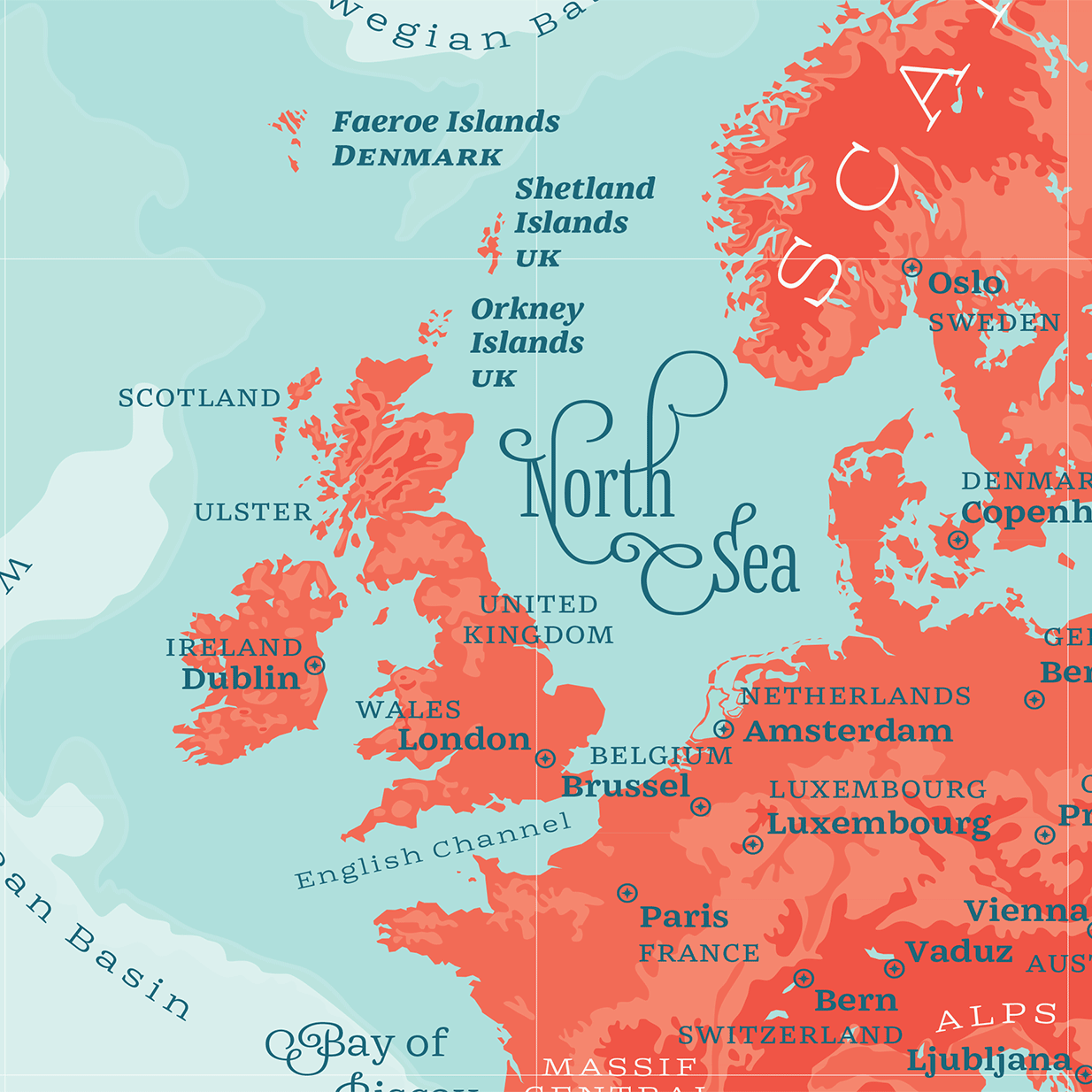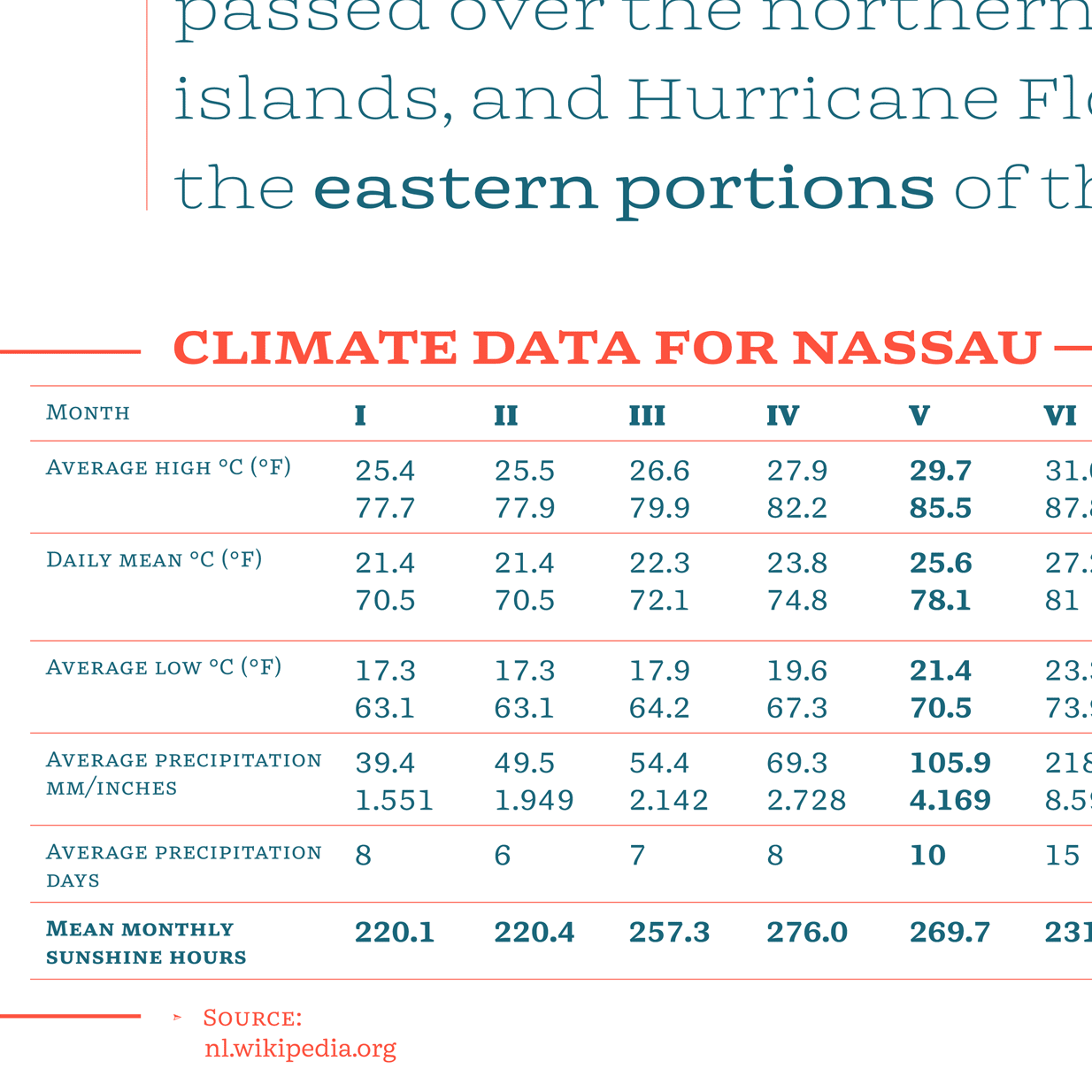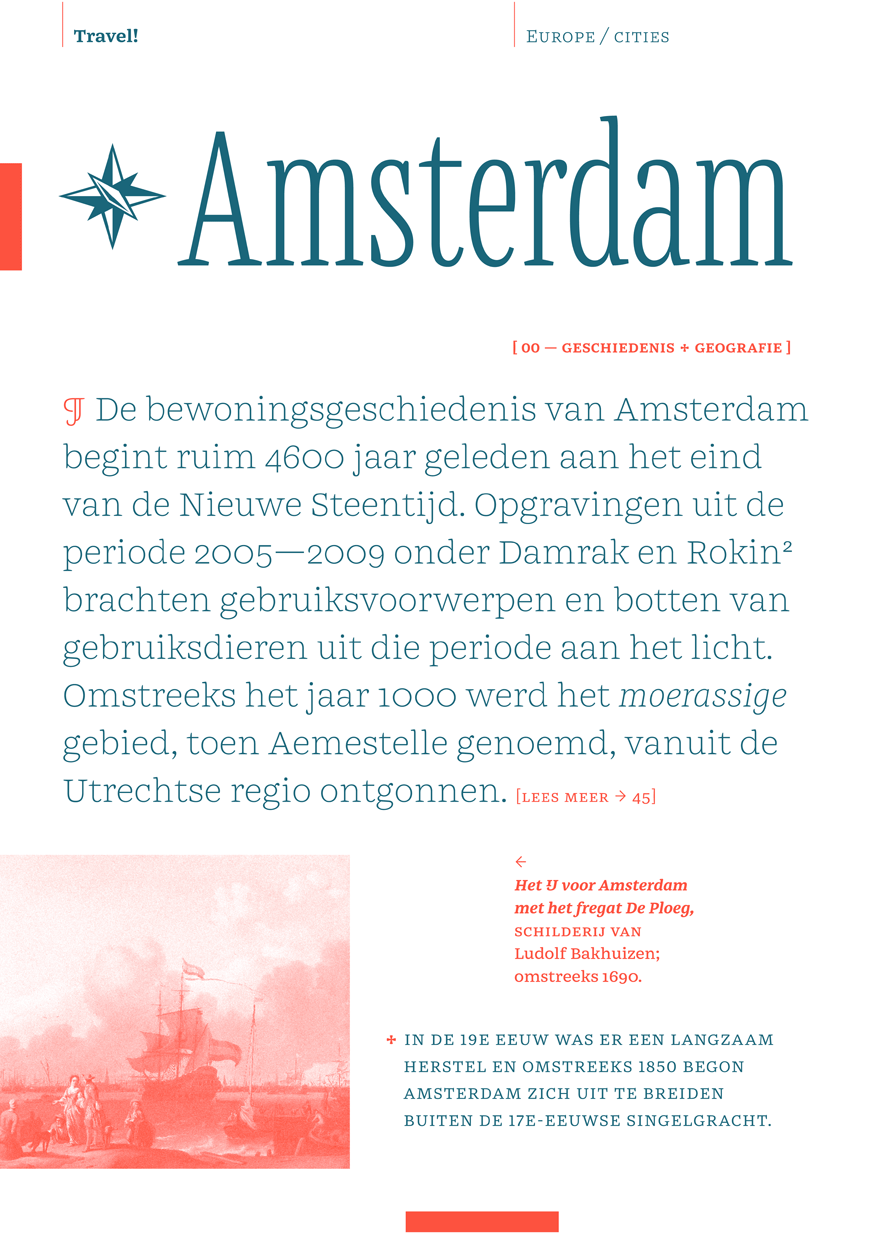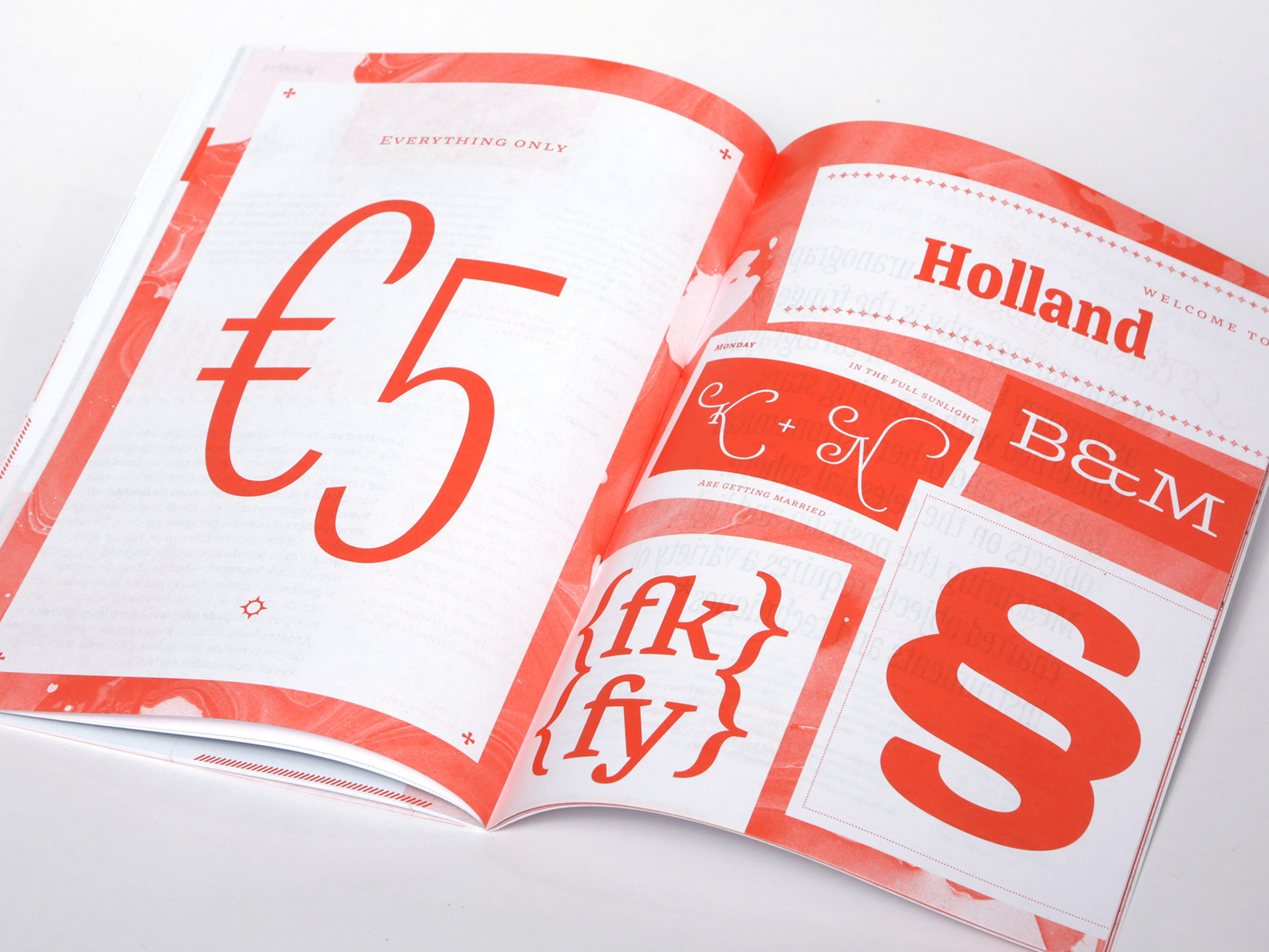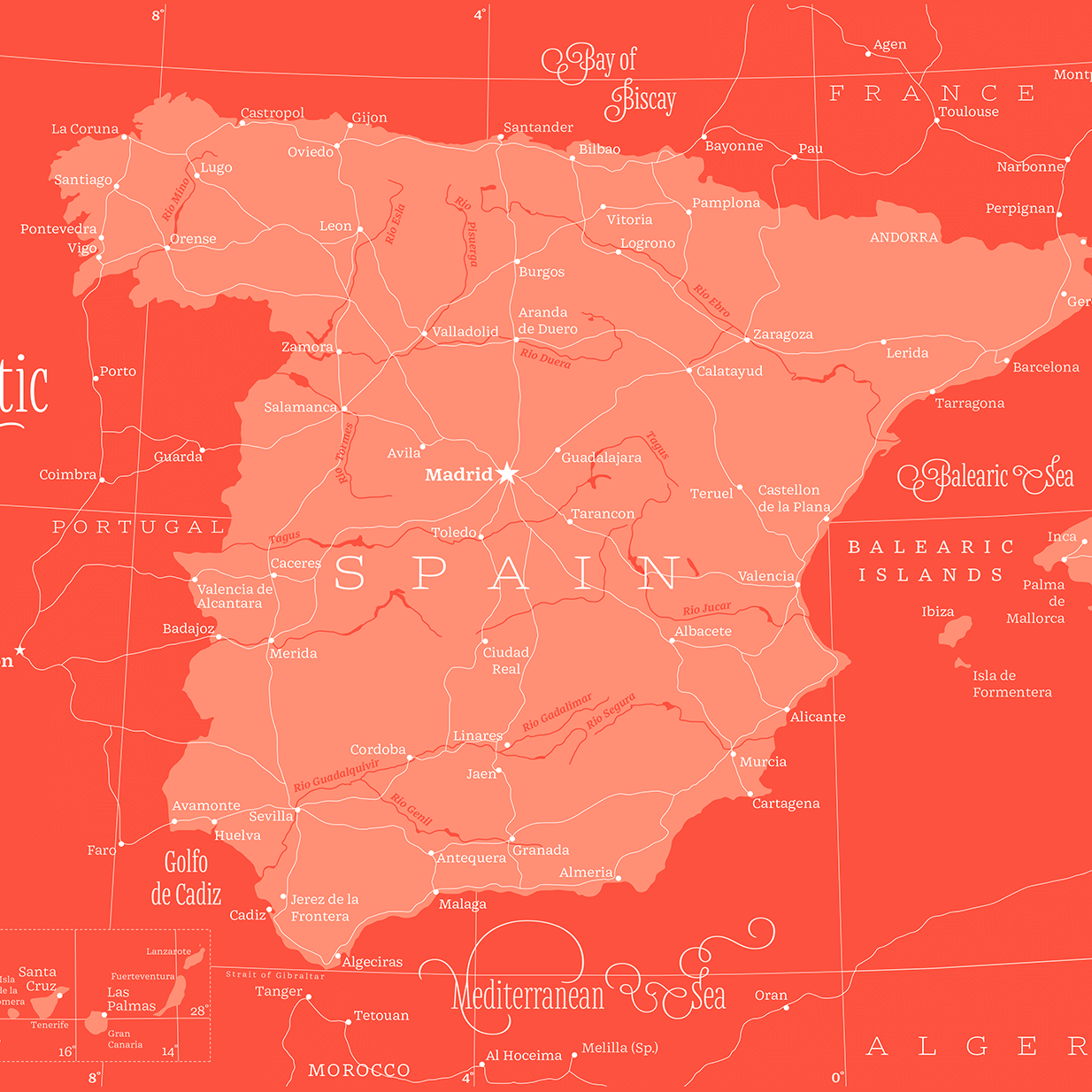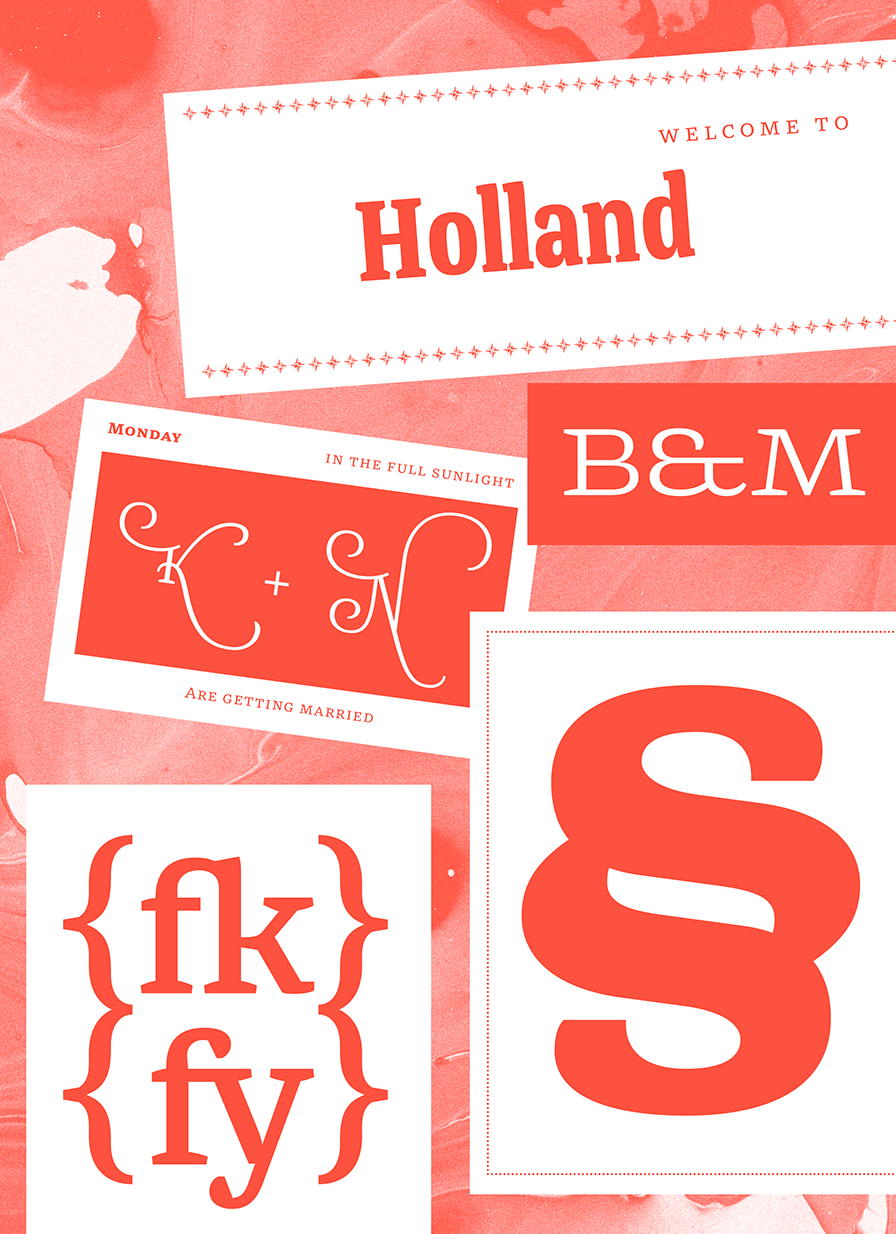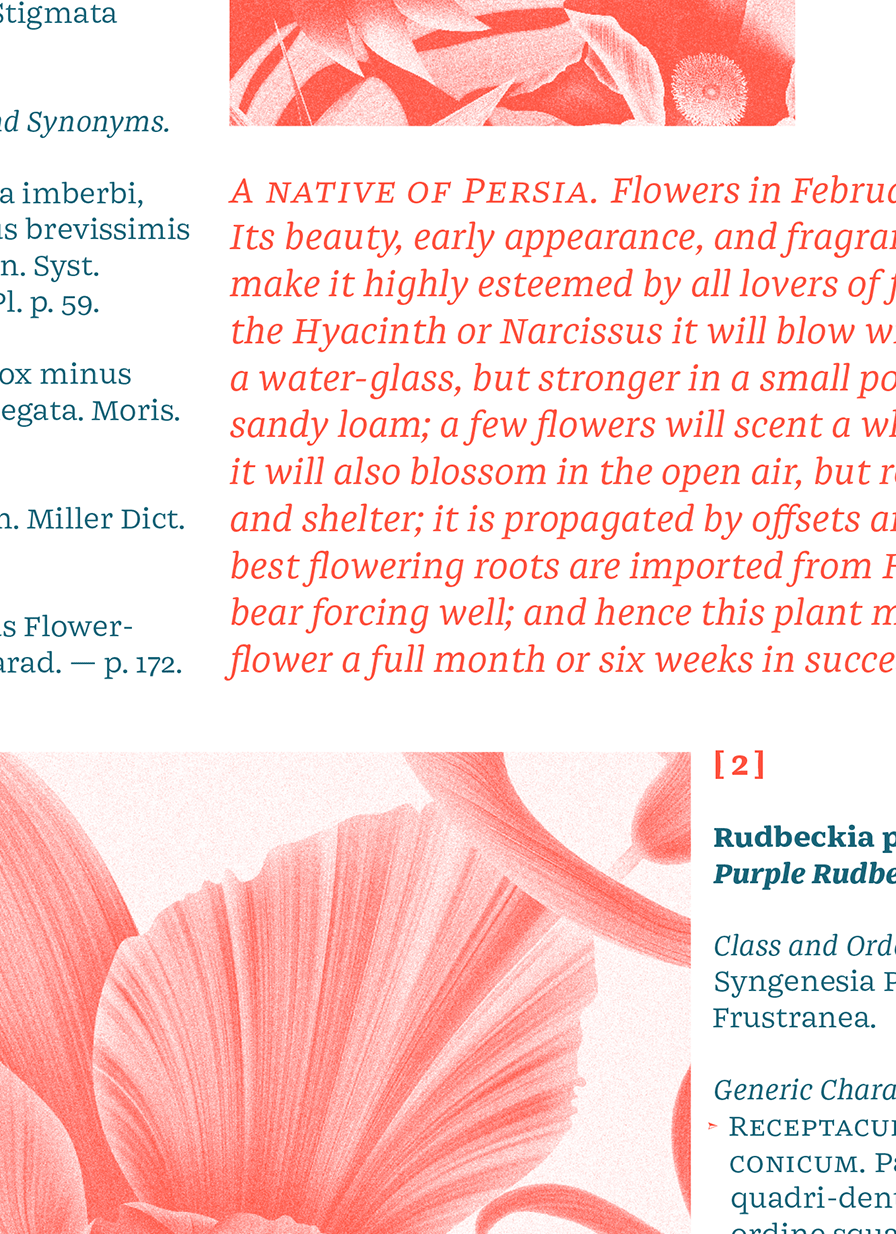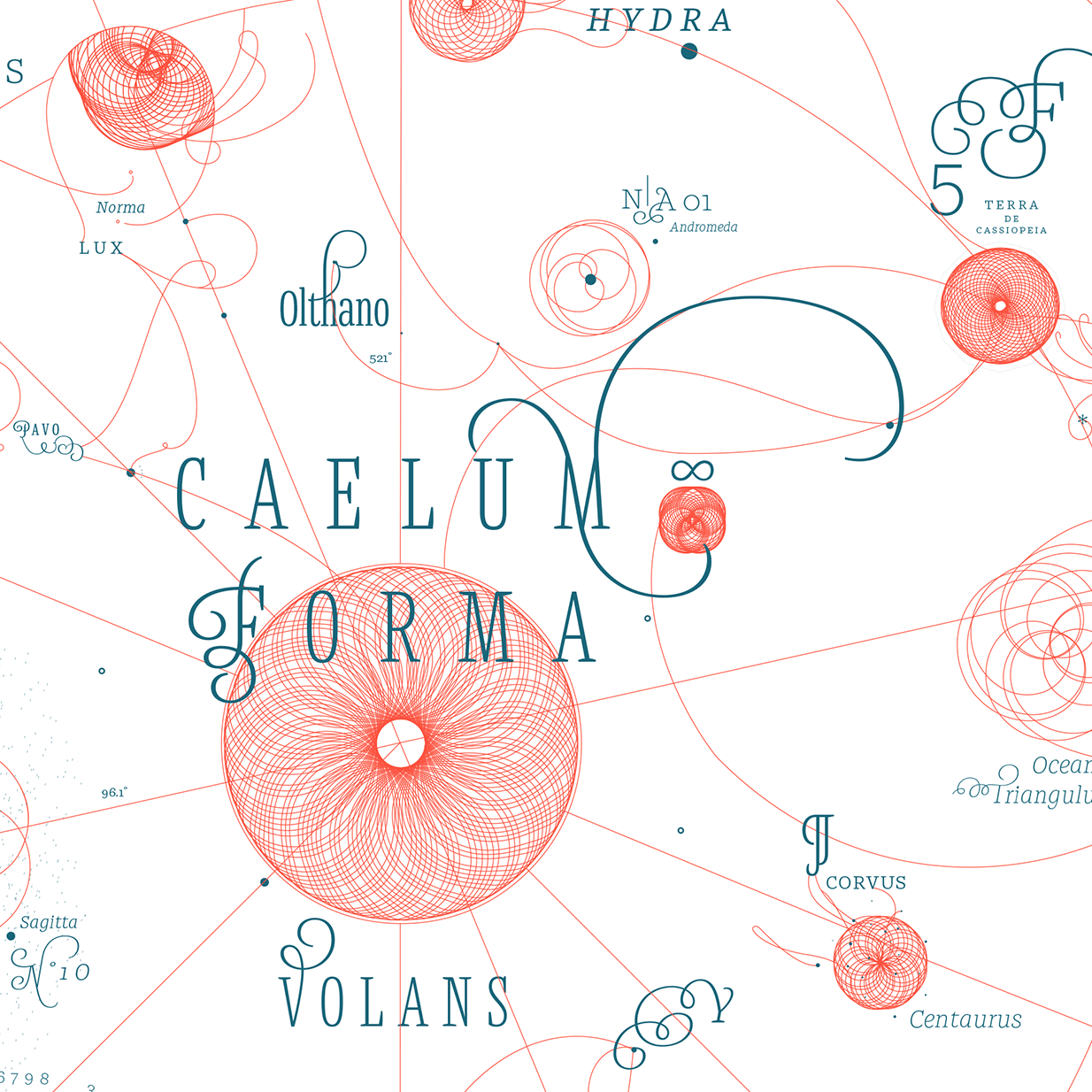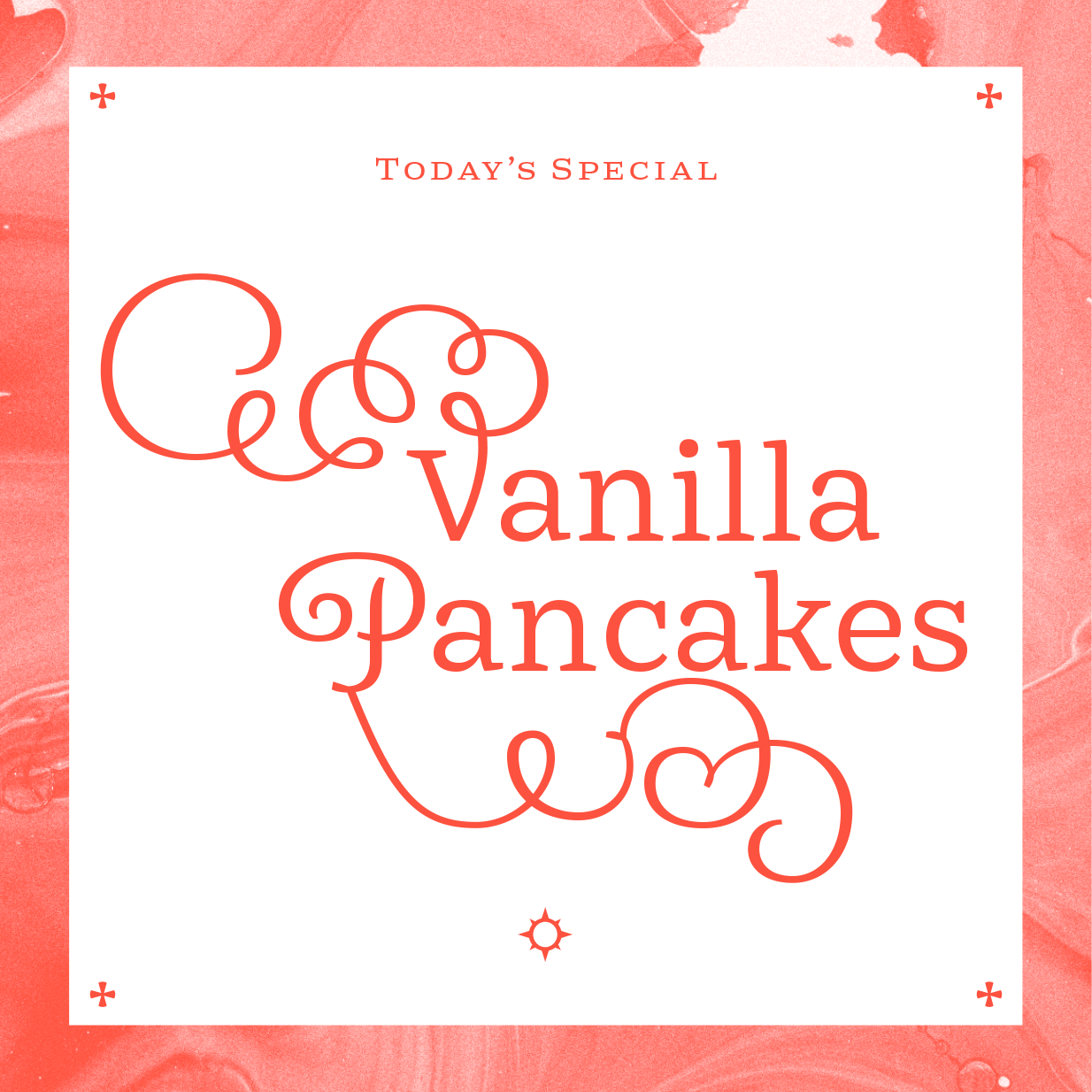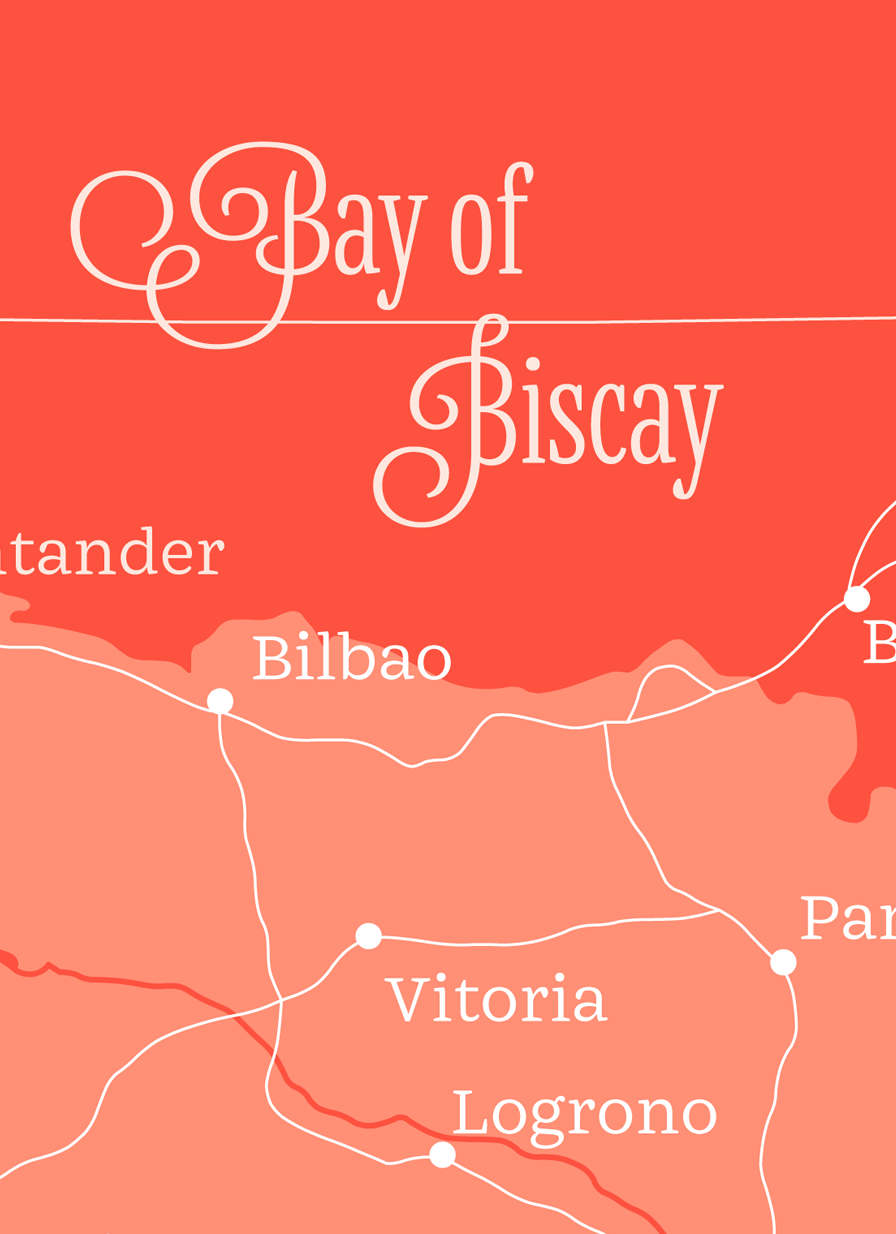
Mala
Maps, of any kind, are complex and multilayered sources of information. They are not read continuously like books, but use type in a very different way. Mala by Barbara Bigosińska is designed for exactly that. With its extensive range of 32 styles in three different widths, the series enables clear labeling, distinction and structuring of information. At that, Mala doesn’t follow any particular existing style. It could be described as a quaint typeface of modern proportions and form model with a hint of “typewriter-feel”.
Mala’s basic styles of normal width are geared to setting texts in a wide range of sizes and length — from headlines to body copy to labels or glosses. The Condensed and Extended styles on the other hand are designed for extreme situations where one has to work with either plenty or very little space, for instance compact titles as well as sweeping, exuberant display typography. All styles include two sets of decorative swash capitals for extra lavish layouts and many OpenType features such as small caps, an extended set of ligatures, ornaments, arrows, different sets of numerals, fractions and ordinals — all across an extended Latin character-set.
The design of Mala started during the Type and Media course at the KABK in The Hague in 2013; development continued through 2016.